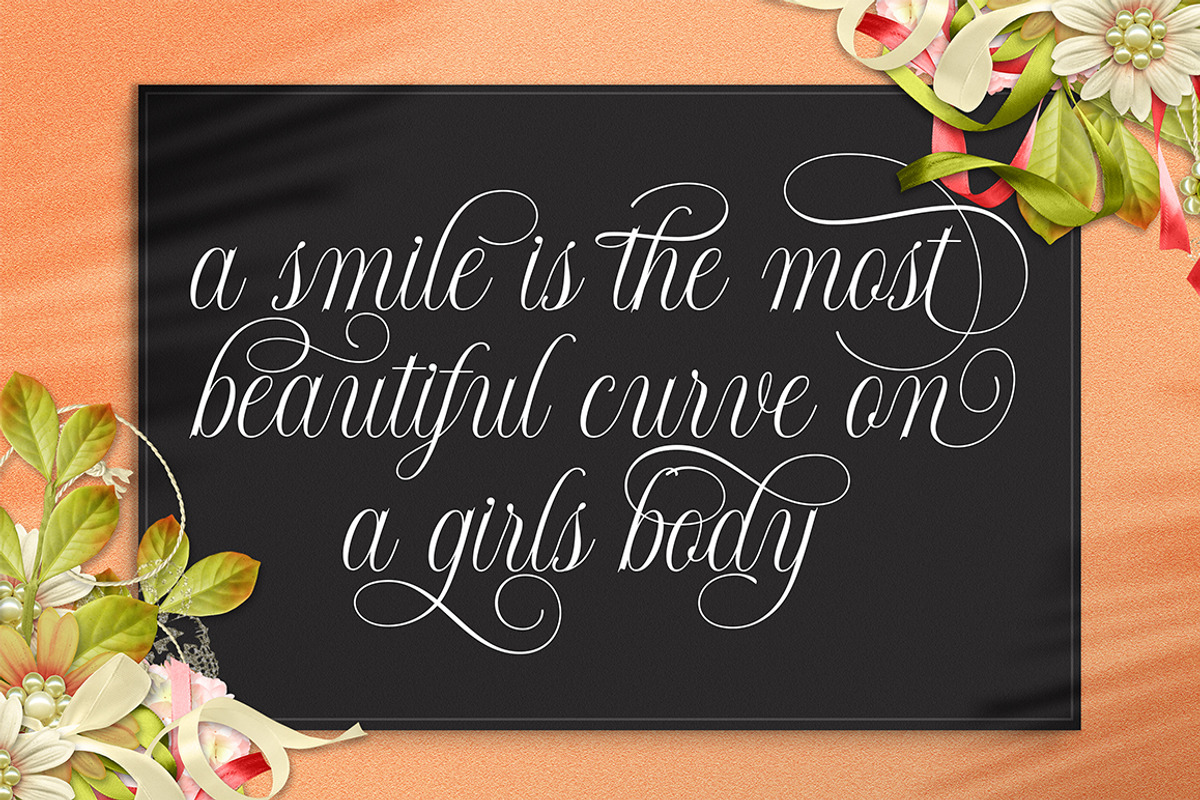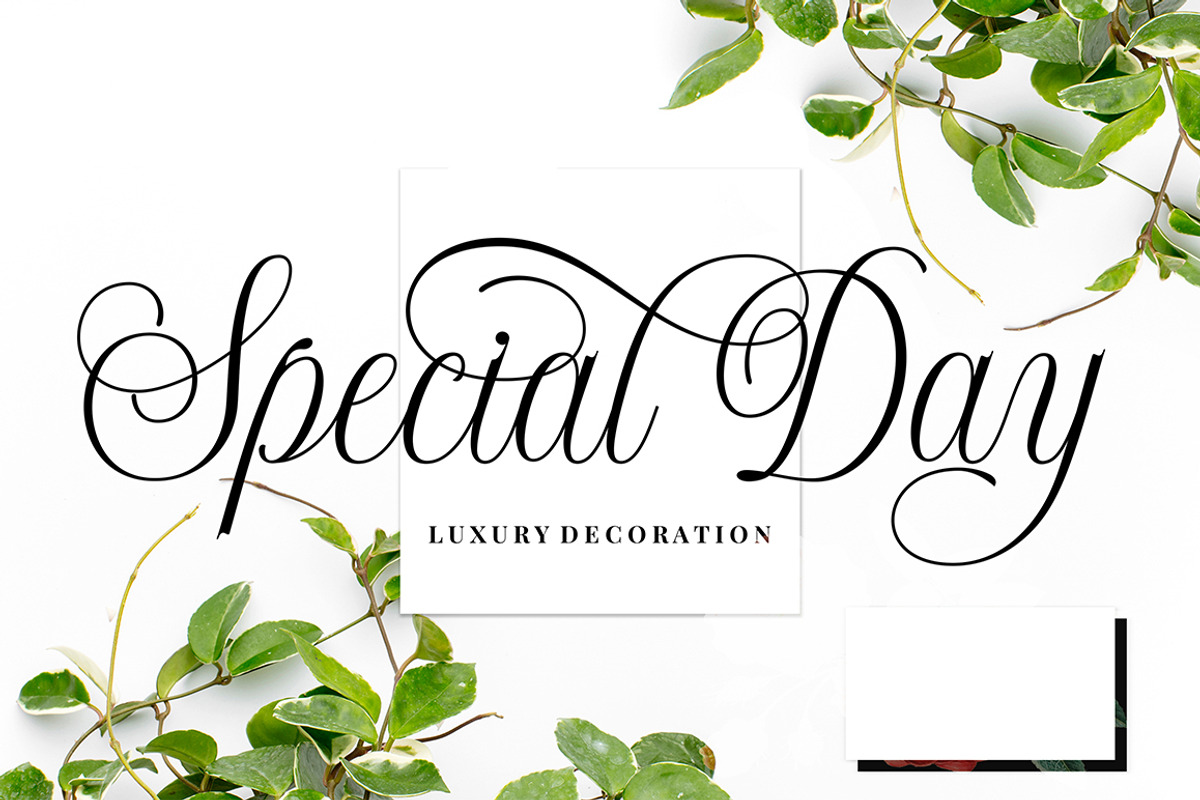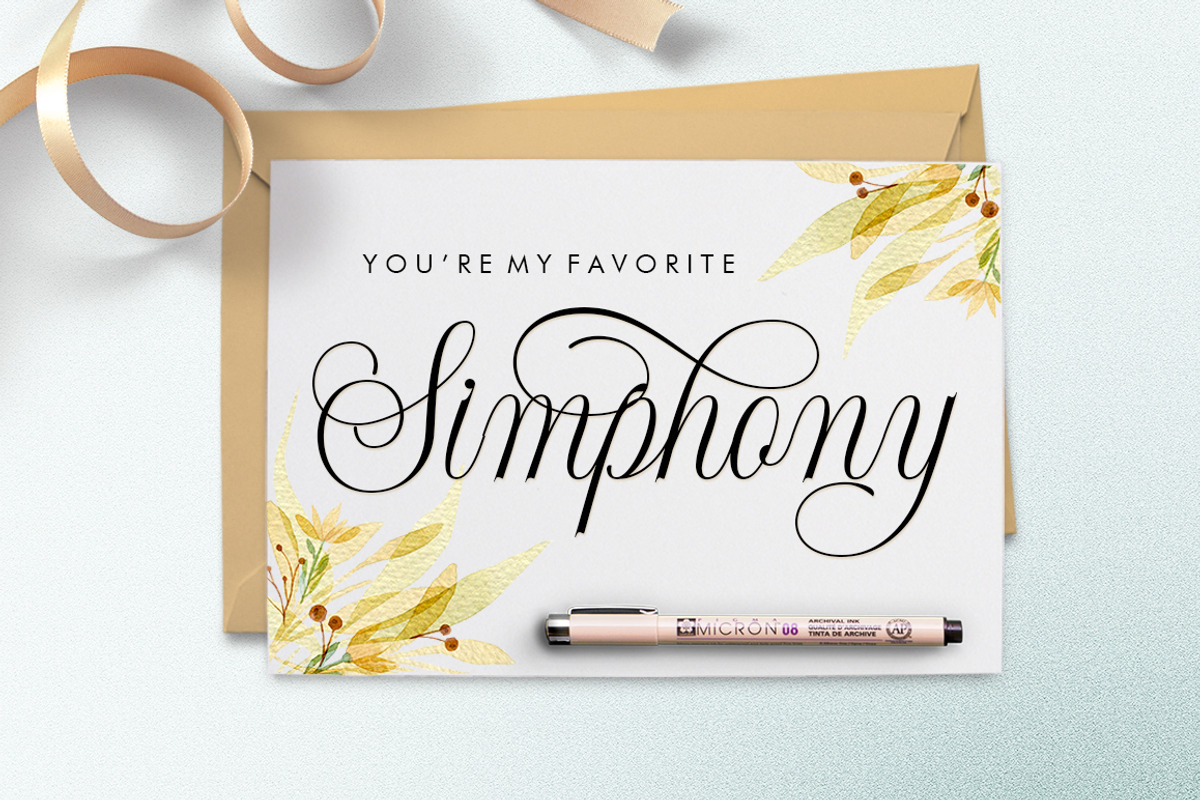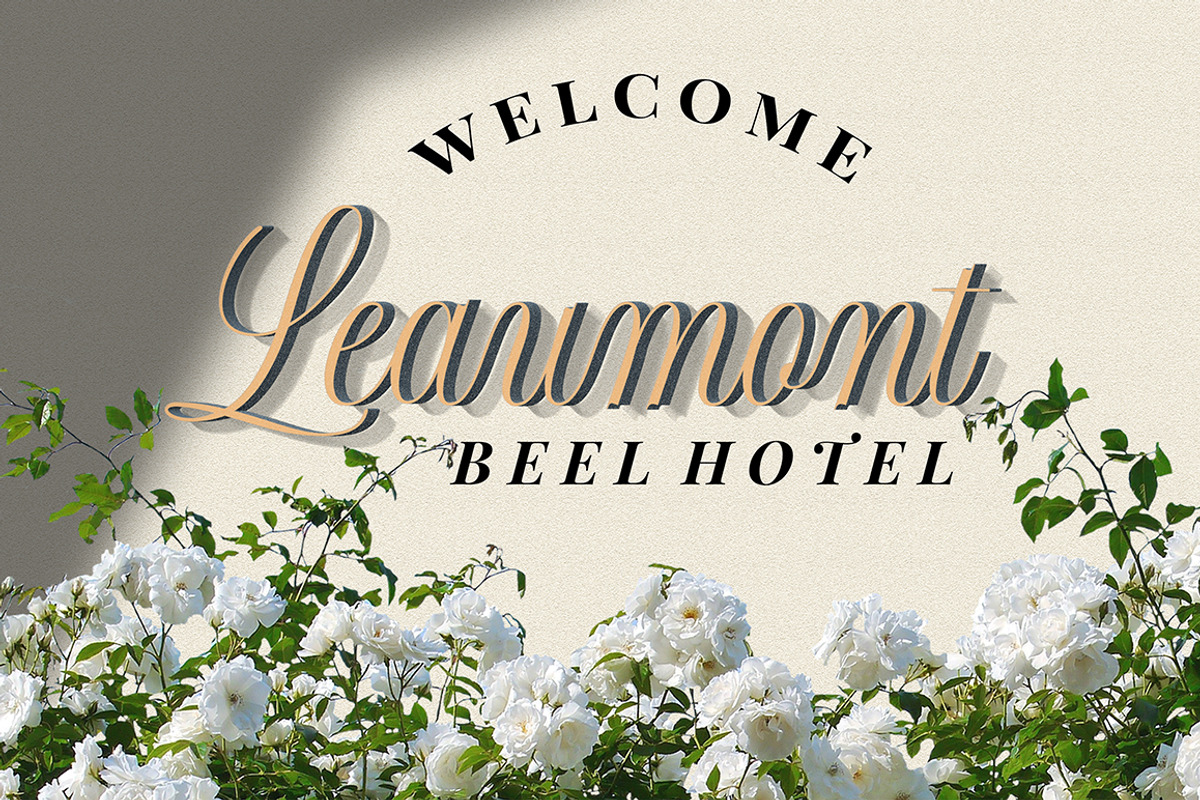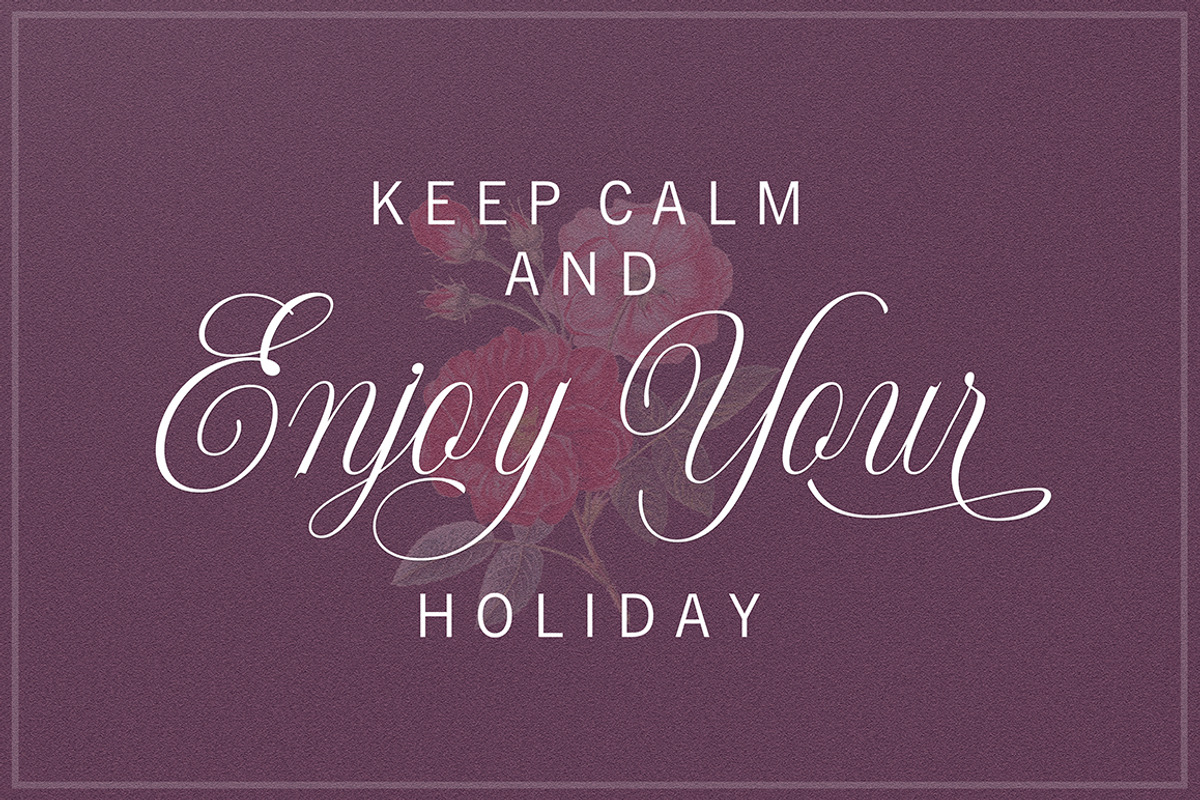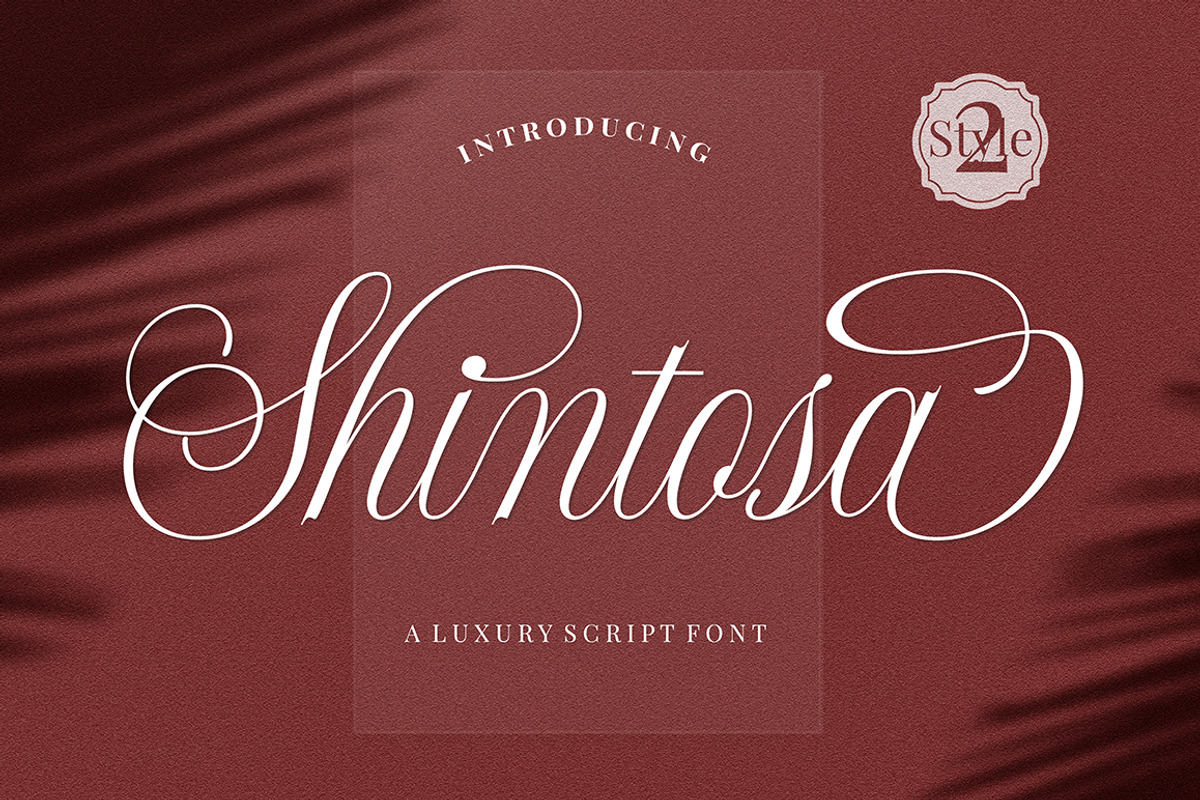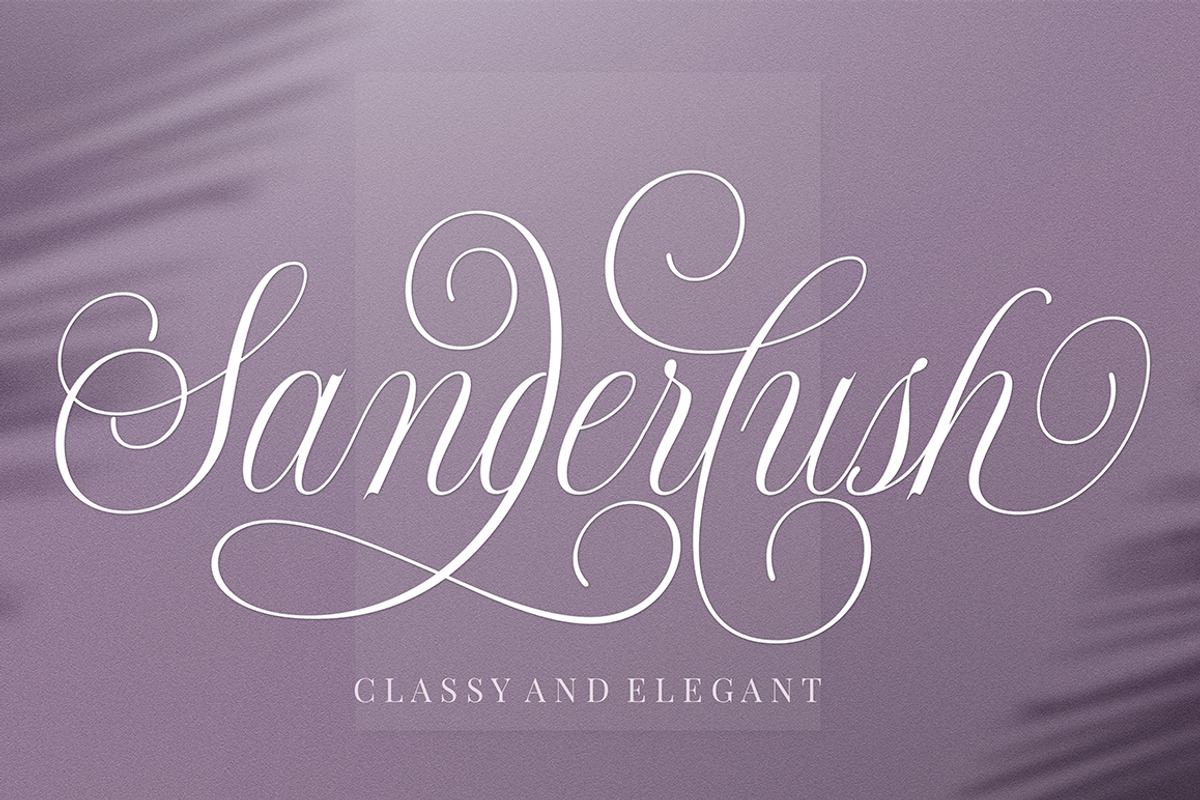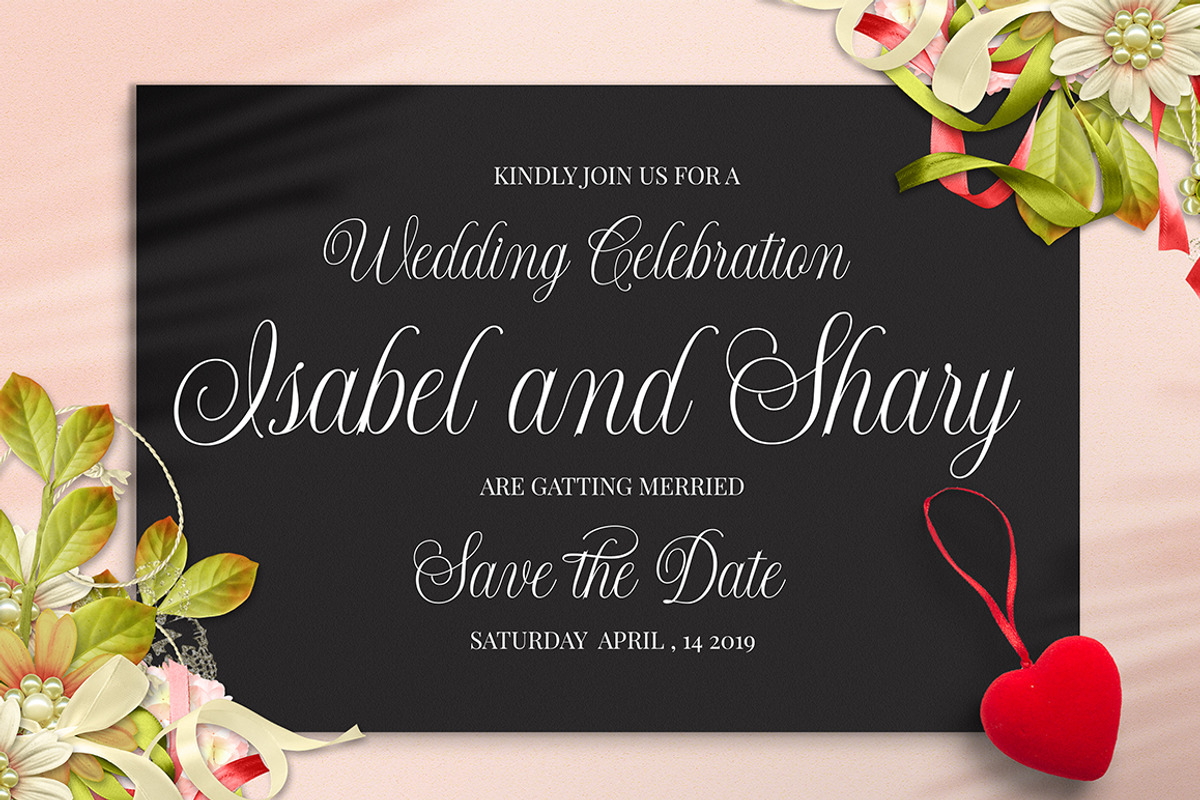
Shintosa Script
Introducing Shintosa a luxury script font
Shintosa Script is a stylish calligraphy font that features a varying baseline, smooth line, classic and elegant touch. sort of classic decorative copperplate script with a modern twist. Also I offer a decent amount of stylistic alternatives for many letters. Can be used for various purposes.such as headings, signature, logos, wedding invitation, t-shirt, letterhead, signage, lable, news, posters, badges etc.